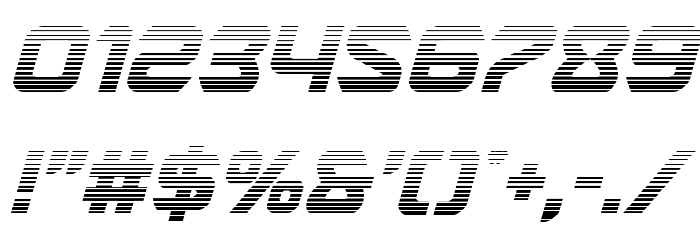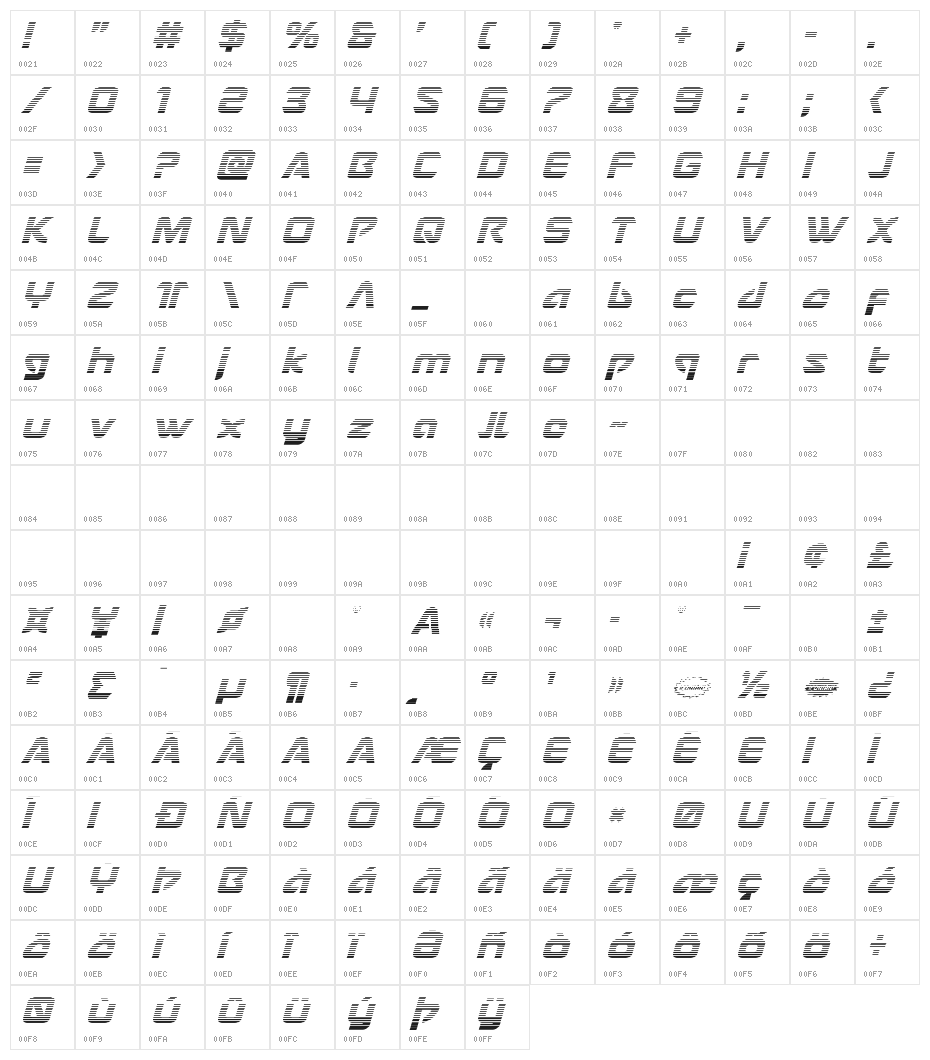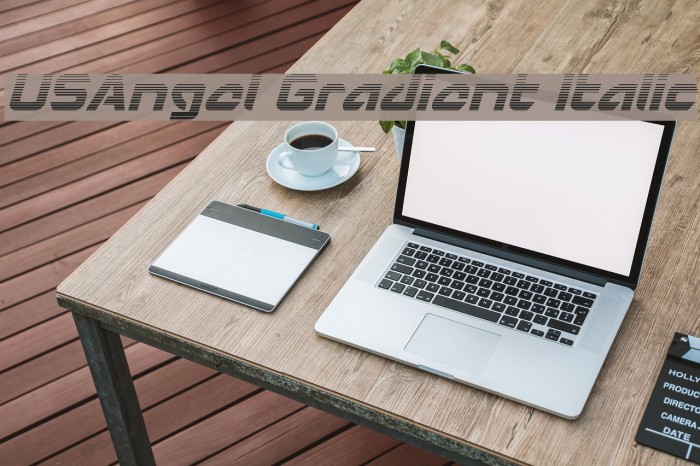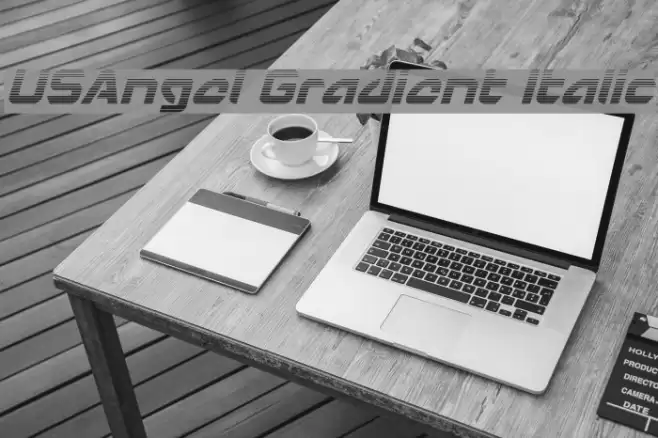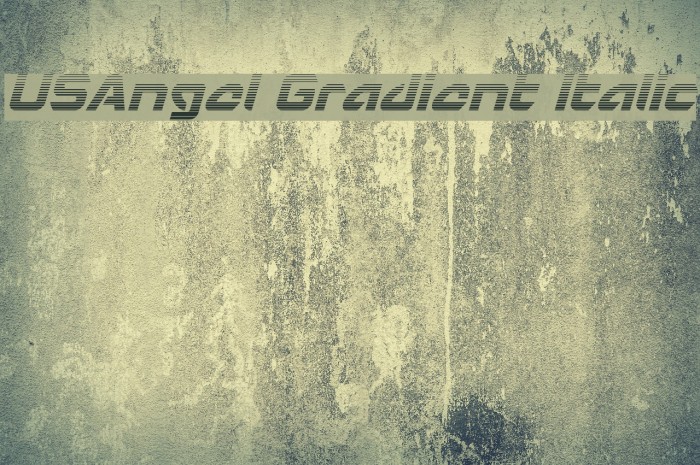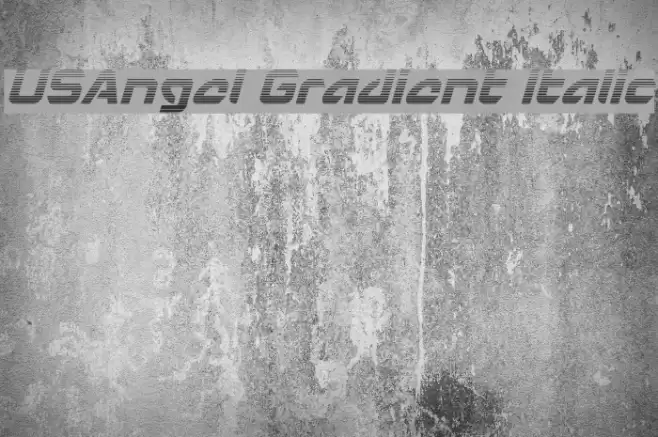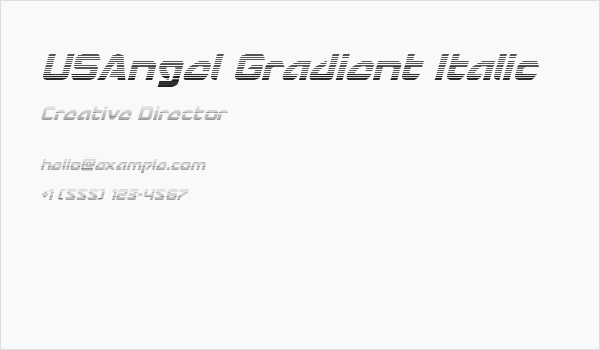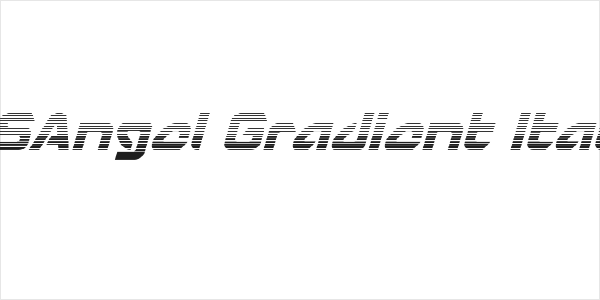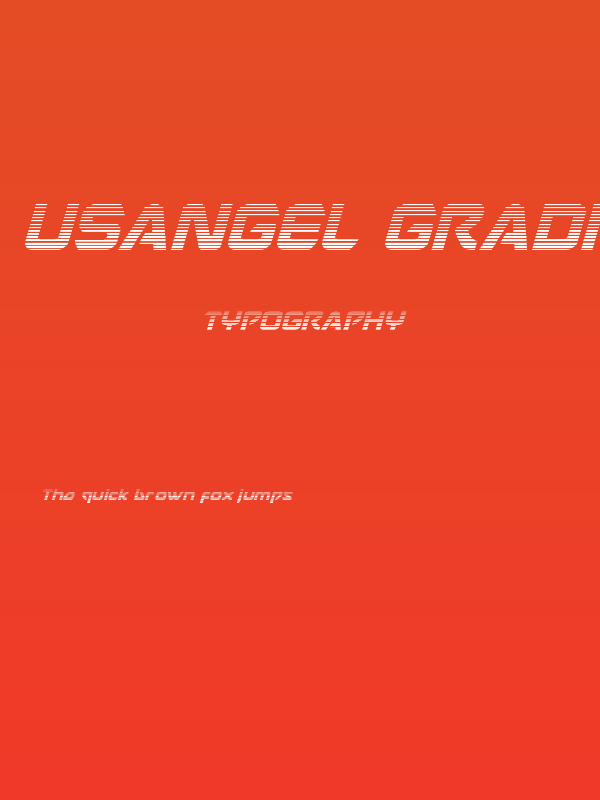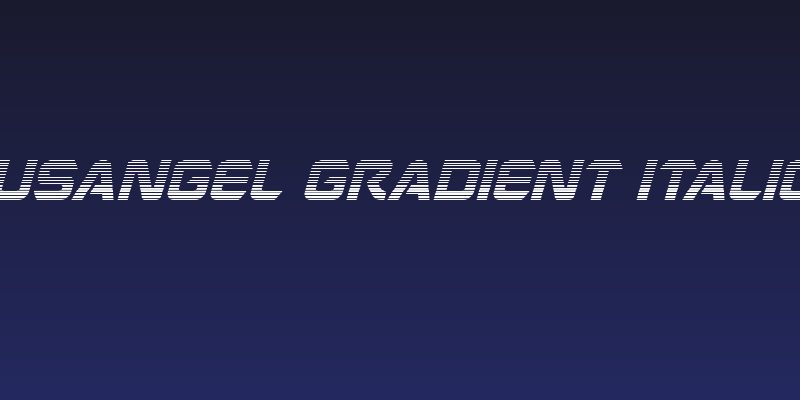
USAngel Gradient Italic Font
USAngel Gradient Italic Description
This font features a dynamic and futuristic design with a distinct italic slant. Each character is composed of horizontal lines that create a gradient effect, giving the font a sense of movement and speed. The uppercase and lowercase letters maintain a consistent style, with sharp angles and clean edges. The numbers and special characters follow the same design principles, ensuring uniformity across all glyphs. This font is ideal for projects that require a modern and energetic aesthetic, such as sports branding, technology advertisements, or video game titles.
| Proposed Projects | Ideal for sports branding, tech advertisements, and video game titles. |